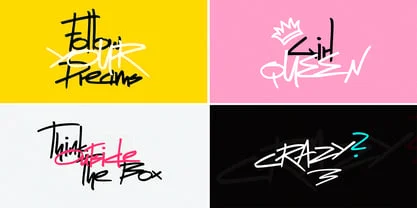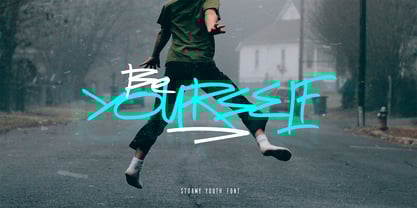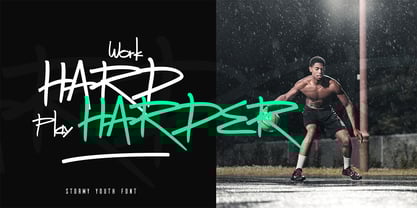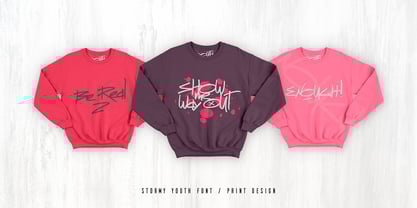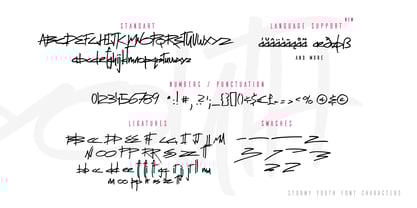
When a design brief calls for both the kind of restraint that lets content lead and immediate visual impact, type choices matter — Stormy Youth answers that brief. The typeface brings a versatile sensibility to a broad range of creative disciplines, with optical balance across all weights that holds up whether the work is print-first or screen-first.
In practice, Stormy Youth proves particularly effective for environmental graphics, web design, packaging design, logo design, brand identity systems. Designers reaching for it find that the type decisions feel resolved rather than laboured — a useful quality when client timelines are tight.
The range of applications extends to annual reports, poster creation, social media graphics, signage systems. That breadth is deliberate: the proportions and spacing were stress-tested across a wide range of mock briefs before the typeface was finalised.
The consistent rhythm of Stormy Youth across a full paragraph creates the kind of even grey value that makes extended reading comfortable, a detail that matters more in long-form content than its subtlety might suggest.
UX designers establishing typographic systems for digital products find Stormy Youth a reliable choice for projects that demand both personality and restraint. The design avoids the self-conscious quirkiness that dates quickly, settling instead for considered distinctiveness that holds up over time.